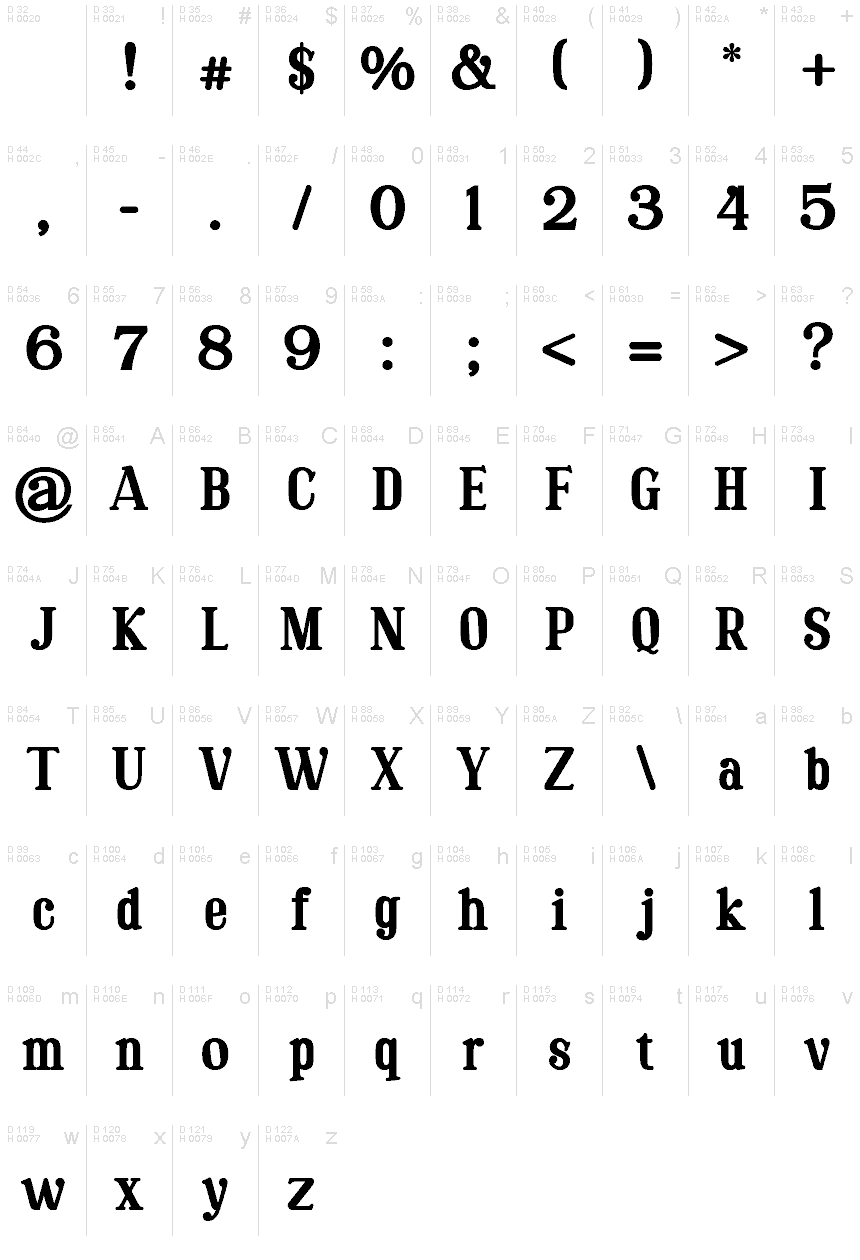
Workbar
\nWorkbar font by UI Creative is a condensed serif font with a strong appearance and industrial vibe. Its classic style holds an added retro influence that makes it suitable for multiple styles of projects. The smooth letter corners soften the overall robust structure allowing for harmonious combinations where each character performs its role.
This free serif font works perfectly in corporate designs, branding and visual identity designs, magazines with business-related topics, banners and posters, print packaging projects, outdoor advertising projects such as billboards or bus stop signs.